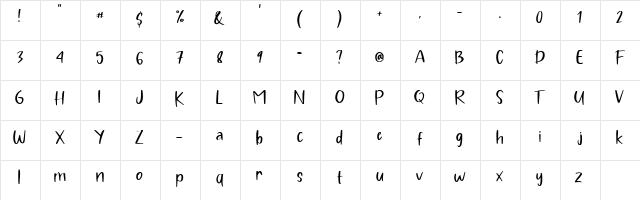
Pig Year Display Regular
Design Context for Pig Year Display Typeface
Pig Year Display brings ornamental detail and strong personality to headlines and identities, where visual impact matters more than quiet functionality.
Font Pairing: Pair with a clean neutral sans-serif for body copy to let Pig Year Display's character lead without overwhelming the composition.
Pro Tip: Treat Pig Year Display as the centrepiece of your typographic hierarchy. One strong heading set in a decorative face can carry an entire layout.